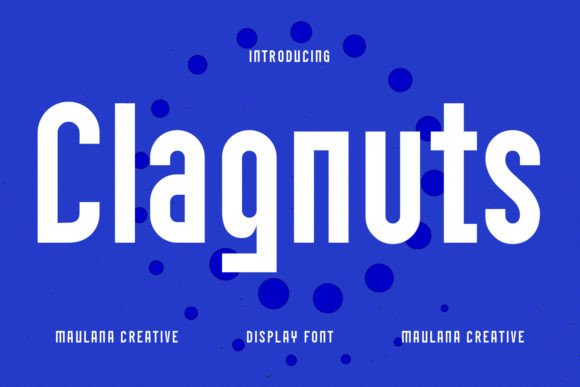
Journey into the realm of digital aesthetics, where Clagnuts Font emerges as your creative compass. Crafted with meticulous attention to detail, this Bauhaus-inspired masterpiece effortlessly blends the bold geometry of brutalism with the playful fluidity of flat bar sans.
Immerse yourself in the myriad possibilities Clagnuts Font unlocks. Its regular stroke and whimsical character dance across the screen, inviting you to express your individuality. Experiment with its tantalizing ligatures and stylistic variations, adding a touch of intrigue to your designs.
But Clagnuts Font's allure extends far beyond its visual prowess. This linguistic chameleon supports over 100 languages, empowering you to communicate your message to a global audience. Its versatility knows no bounds, seamlessly adapting to a symphony of design endeavors.
Envision your brand's logo adorned with the bold strokes of Clagnuts Font, instantly establishing a commanding presence. Unleash its captivating charm on social media, captivating your followers with eye-catching posts. Let its cinematic flair grace movie titles, evoking a sense of anticipation and wonder.
Clagnuts Font's versatility extends to the written word. Its crisp lines lend an air of sophistication to book titles, drawing readers into your literary creations. Whether you're crafting short, snappy texts or embarking on a lengthy literary journey, Clagnuts Font is your steadfast companion.
But don't just take our word for it. Experience the transformative power of Clagnuts Font firsthand. Witness how its strokes ignite your imagination, inspiring you to create designs that resonate deeply with your audience. Make a statement with Clagnuts Font, and let your creativity soar to unprecedented heights.